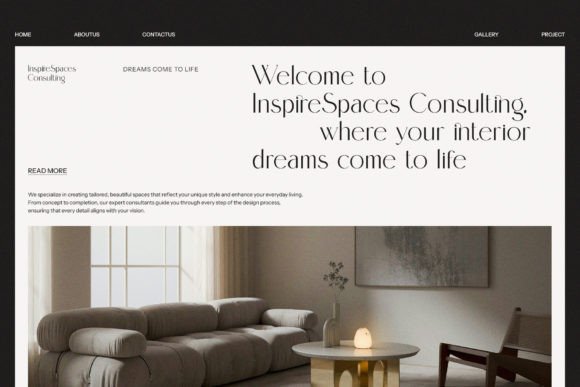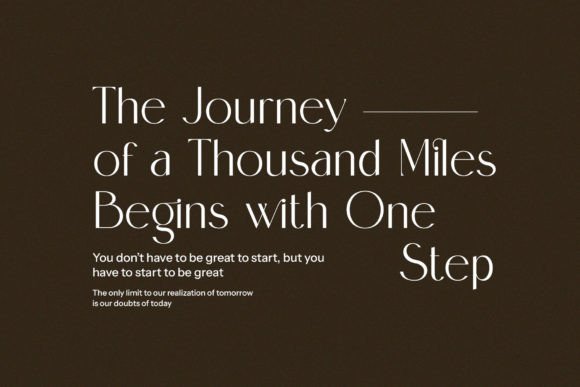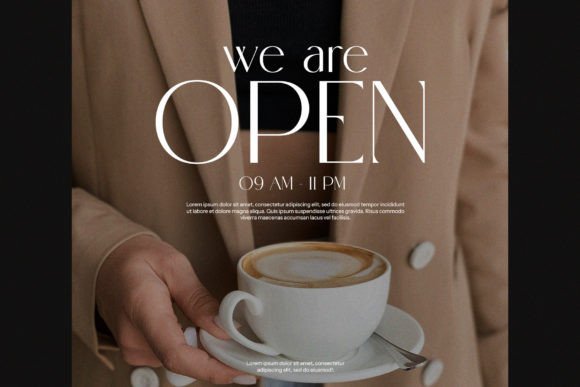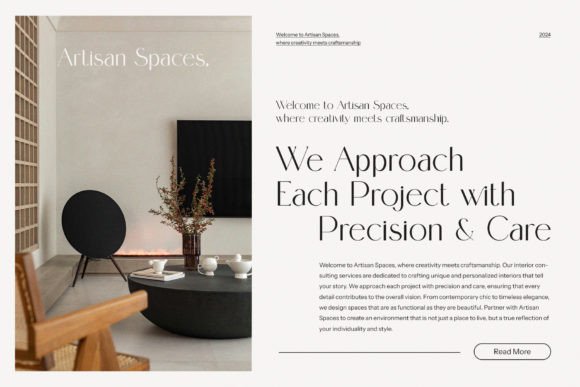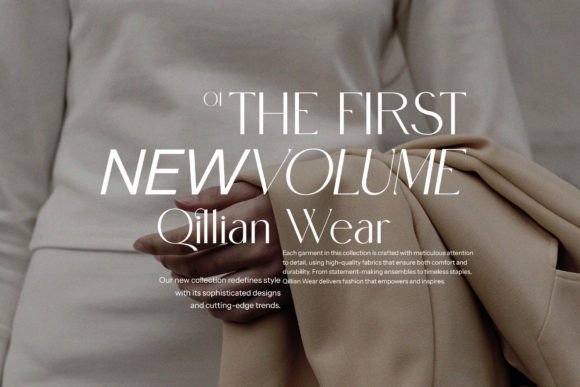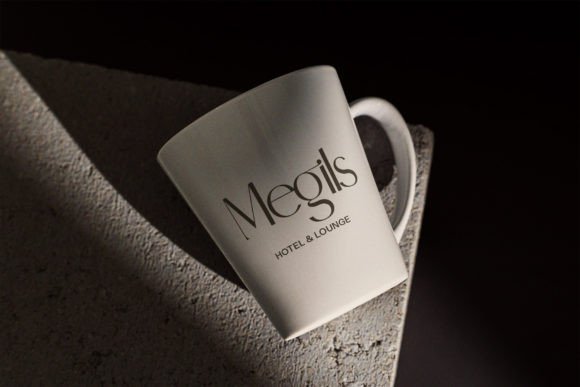
The Perfect Blend of Sophistication and Elegance
Have you ever been stuck in front of a blank canvas, struggling to find the perfect font to bring your design to life? The blank page can be intimidating, but what if you had the secret ingredient to elevate your work from ordinary to extraordinary? For designers seeking to add a touch of luxury and sophistication to their projects, the answer lies in the Gimile Font.
Developed with precision and care, the Gimile Font is a sophisticated ligature serif that exudes premium quality and refinement. Its unique ligatures set it apart from the ordinary, making it the perfect choice for formal projects such as logos, invitations, magazines, and more. Whether you’re a seasoned designer or just starting out, the Gimile Font is a valuable asset that will help you create stunning work that leaves a lasting impression.
Gimile Font Key Features
- Unique Characteristics: The font features a unique blend of modern and traditional design elements, with a focus on legibility and readability.
Gimile Font Review
Overall, I’d say Gimile Font is a decent, yet not exceptional, font choice. It has some nice qualities, but it also has some limitations.
- ✨ Elegant and modern aesthetic: Gimile Font has a sleek and contemporary look that’s perfect for modern designs.
- ✨ High legibility: This font is easy to read, even at small sizes, making it great for body text and other large blocks of content.
- ✨ Versatile: Gimile Font comes in a range of weights and styles, allowing you to use it for everything from headlines to captions.
- ⚠️ Limited expressiveness: Gimile Font is a fairly generic font, which can make it feel a bit boring or unoriginal in some designs.
- ⚠️ Limited language support: Gimile Font may not include all the characters you need to support languages like Chinese, Japanese, or Korean.
Overall, I think Gimile Font is a solid choice for everyday use, but it may not be the best fit for designs that require a lot of personality or flair.
Common Use Cases for Gimile Font
Gimile Font is commonly used in:
1. Branding and logos
2. Print materials (business cards, brochures, etc.)